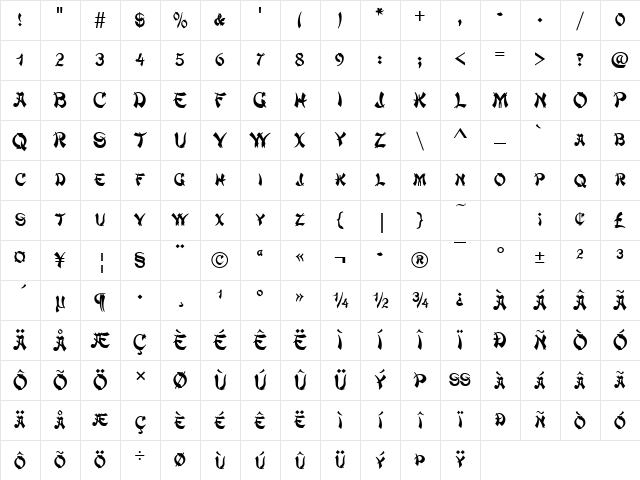
MandarinSCD Regular
Design Context for MandarinSCD
MandarinSCD is a composed and adaptable typeface that performs quietly and consistently across a wide range of design contexts.